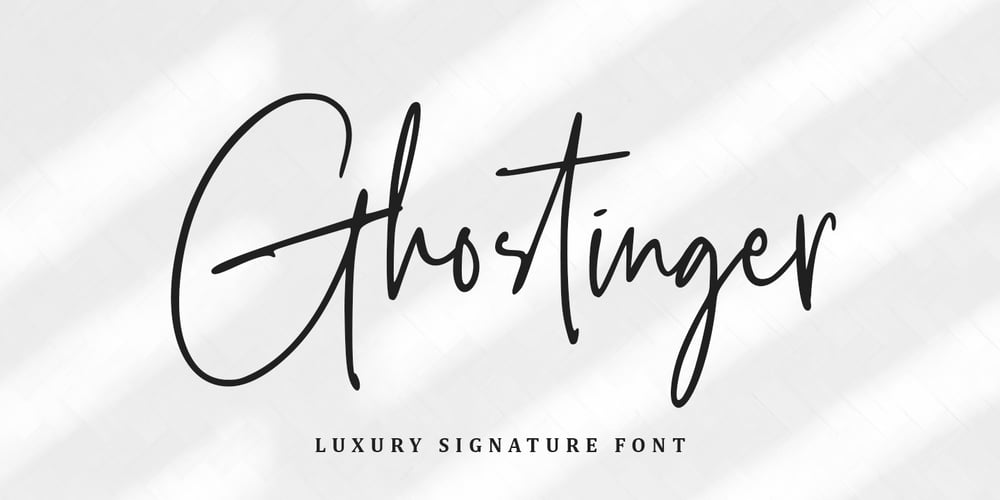
Ghostinger Font Family was designed by Abo Daniel and published by Abo Daniel. Ghostinger contains 1 styles and family package options. introducingGHOSTINGER- luxury signature font -GHOSTINGER is a natural signature font.It is great for branding, packaging, quotes, Signatures, logos, t-shirt designs, tote bag designs, cards, banners, social media, and more.Features:- Uppercase- Lowercase- Numeral- Multilingual Support- Punctuation- Ligatures- PUA encodedI hope you love it.regards,Abo Daniel Studio